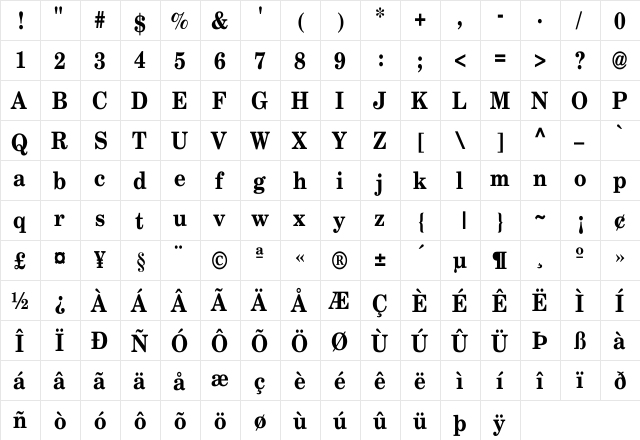
NewCenturySchlbk-Bold Th Regular
Design Context for NewCenturySchlbk-Bold Th Typeface
NewCenturySchlbk-Bold Th is a composed and adaptable typeface that performs quietly and consistently across a wide range of design contexts. The heavy weight commands attention and anchors typographic hierarchies.